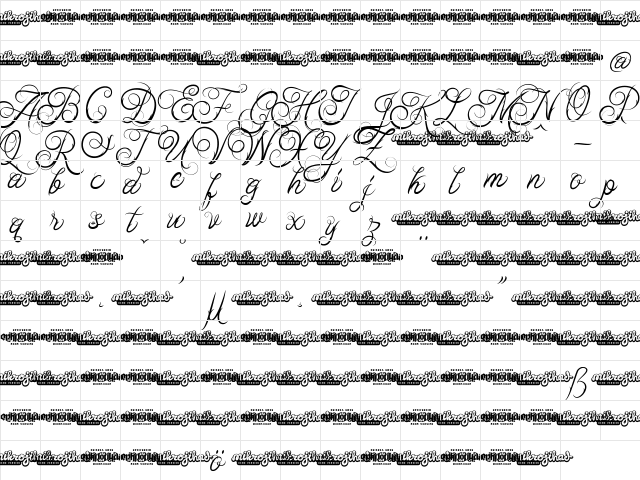
Ababil Script DEMO Regular
| Foundry | Mikrojihad |
| Designer | Hendra Pratama (mikrojihad) |
Design Context for Ababil Script DEMO Typeface
Ababil Script DEMO brings a calligraphic fluidity to the page — its connecting strokes and expressive curves give it an unmistakably human quality.
Font Pairing: Combine Ababil Script DEMO with a simple geometric sans for maximum contrast — the tension between flowing curves and clean structure is a classic typographic pairing.
Pro Tip: Pair Ababil Script DEMO with a clean sans-serif for supporting text. The contrast between fluid script and geometric structure creates an elegant typographic hierarchy.